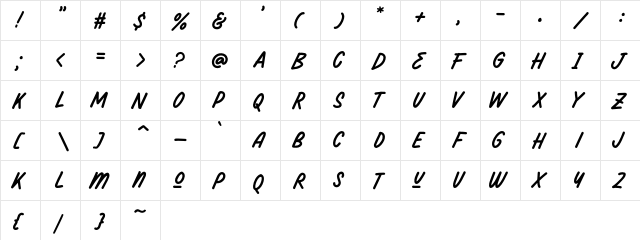
Darthon DEMO Regular
| Designer | Umar Al-Farouq, Sarid Ezra |
Design Context for Darthon DEMO Typeface
Darthon DEMO takes a measured approach to typography — its balanced proportions and neutral character make it a reliable workhorse for both digital and print work.